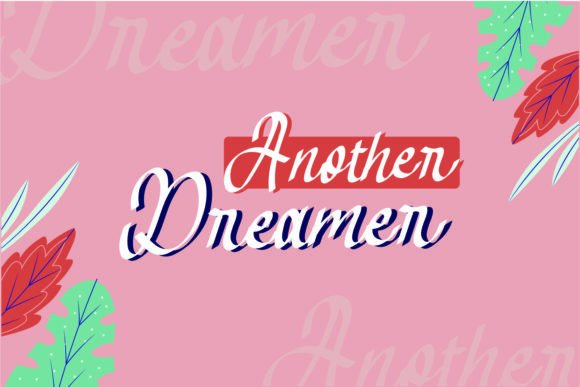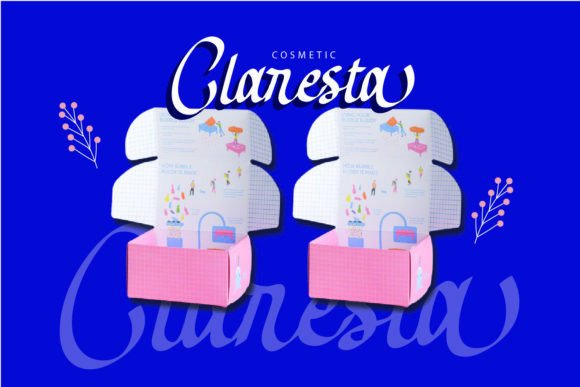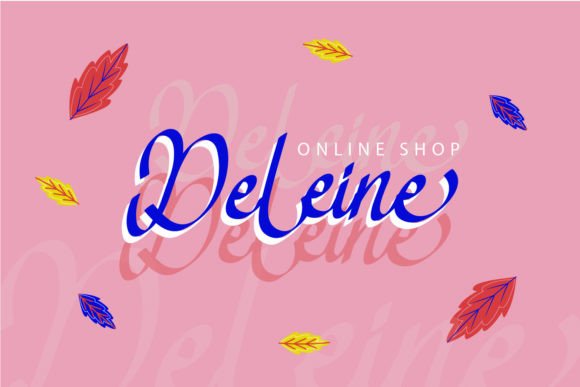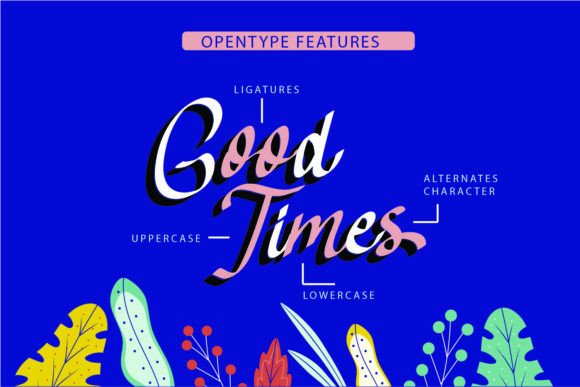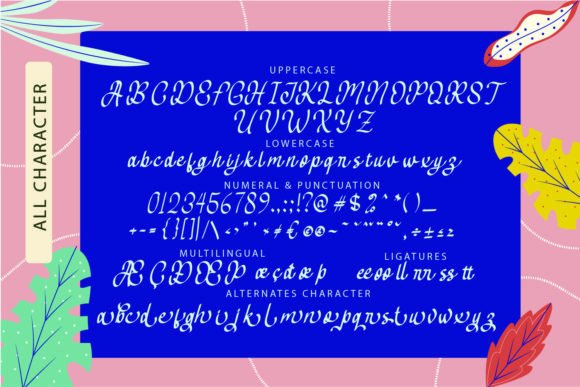
Introduction to Boungell Font
Boungell is a handwritten font that boasts intricate details and ornamental flourishes, making it an exquisite and unique choice for any design project.
Each letter is crafted with meticulous attention to detail, adding a touch of sophistication and charm Use Boungell to create designs that stand out and captivate with its one-of-a-kind style.
Key Features of Boungell Font